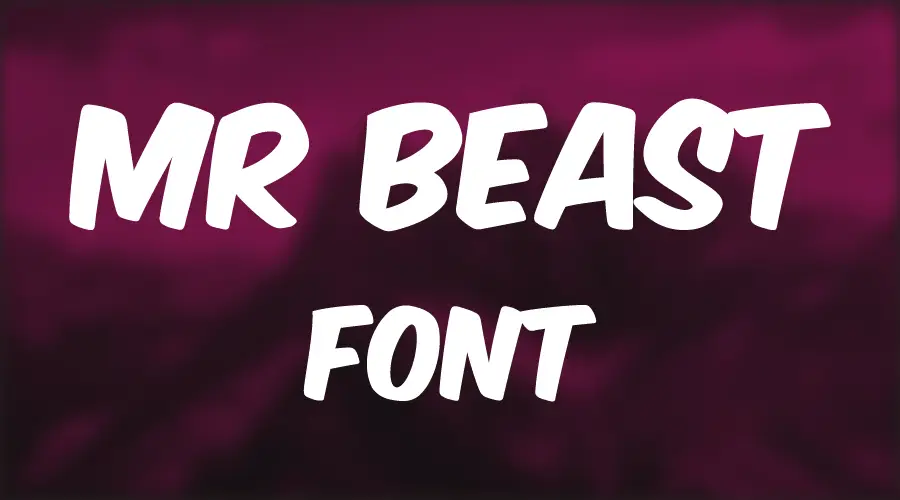
Looking for Mr Beast Font? Mr. Beast, a renowned YouTuber, has made a significant impact in the design community with his distinct choice of fonts in his videos, thumbnails, and subtitles.
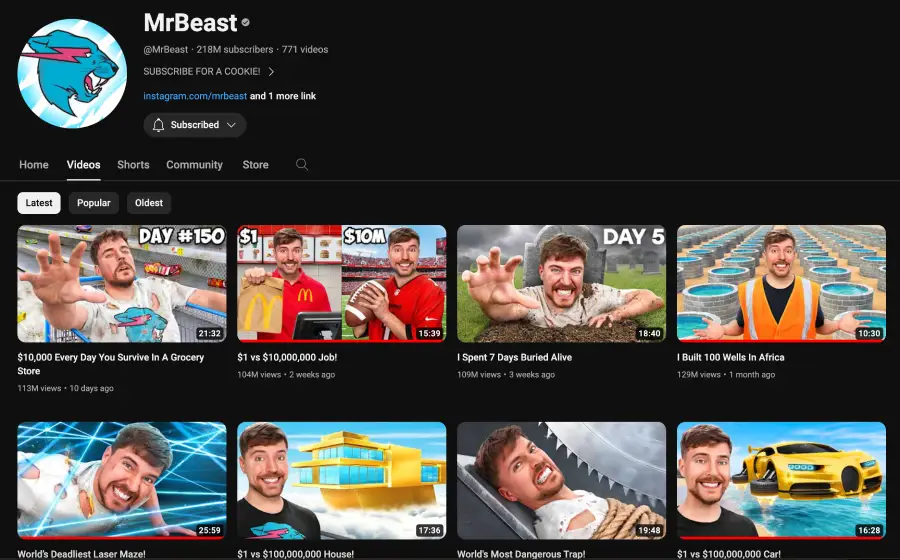
He primarily uses two fonts: Komika Axis and Obelix Pro.
1. Komika Axis Font
Komika Axis, created by Apostrophic Laboratories, is a comic-style font with a simple yet lively appearance. It’s often used in cartoons, books, and videos intended for children, making it an ideal choice for content creators looking to distribute engaging material to their audience. This font, with its 229 characters and sophisticated texture, has gained popularity among designers for its versatility and playful style.
2. Obelix Pro Font
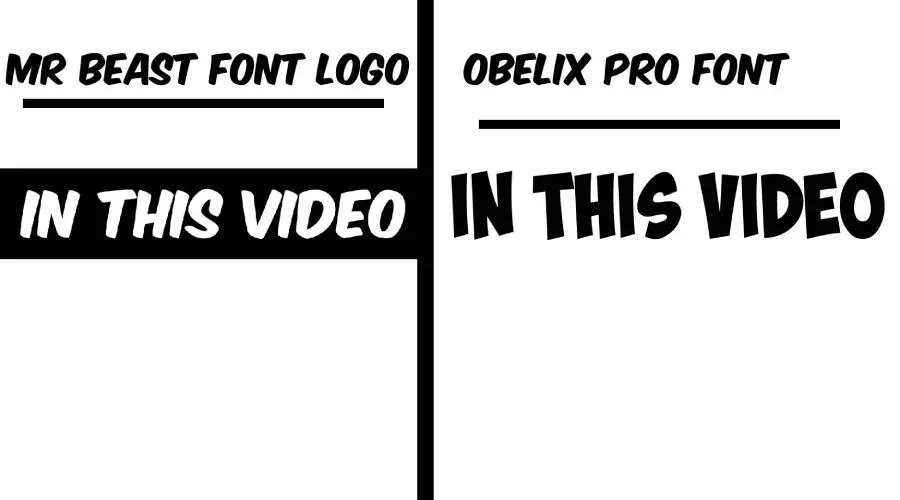
Obelix Pro, designed by Valentin Antonov, is another key font in Mr. Beast’s visual arsenal. It stands out for its boldness and readability, making it a perfect choice for branding, packaging, and logo design. Obelix Pro is particularly notable in Mr. Beast’s thumbnails, capturing the audience’s attention with its comic book-style and energetic letterforms. This font is available for free personal use and includes both uppercase and lowercase letters, as well as other characters.
In addition to these primary fonts, Mr. Beast also incorporates other fonts occasionally, adding to the uniqueness of his branding. For those interested in using similar fonts, there are several alternatives available, such as Luckiest Guy, Bangers, Chewy, and Comic Neue, which offer similar vibes to Komika Axis and Obelix Pro.
In conclusion, Mr. Beast’s unique font choices, primarily Komika Axis and Obelix Pro, play a pivotal role in his branding and visual identity, offering a blend of playfulness, boldness, and readability that has captivated millions of viewers and influenced designers worldwide.